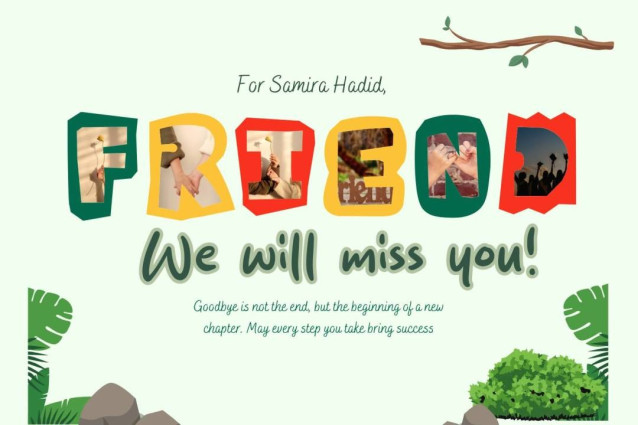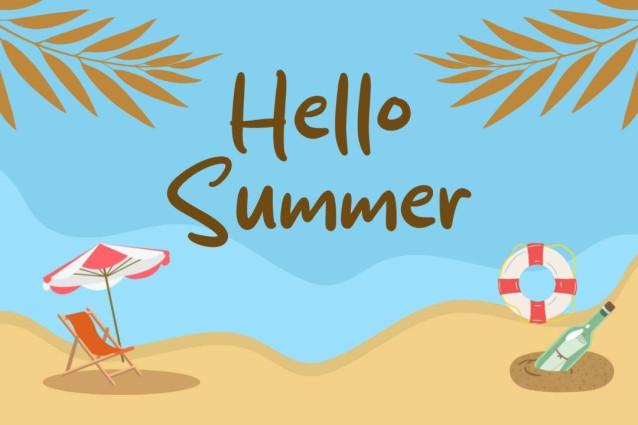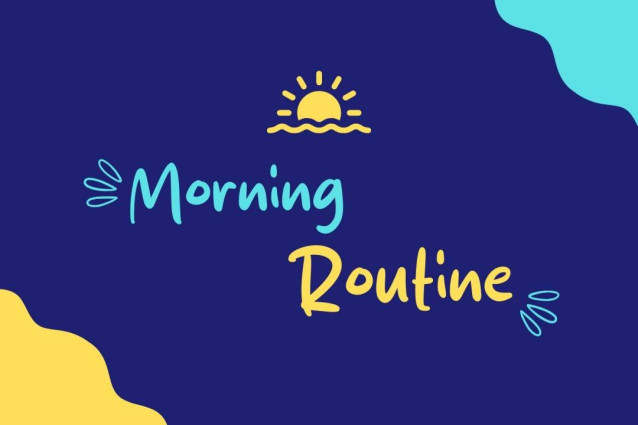
Morning Routine Font
Morning Routine Font is a simple and friendly handwritten font. Its natural and unique style makes it incredibly fitting to a large pool of designs. The only limit is your imagination!